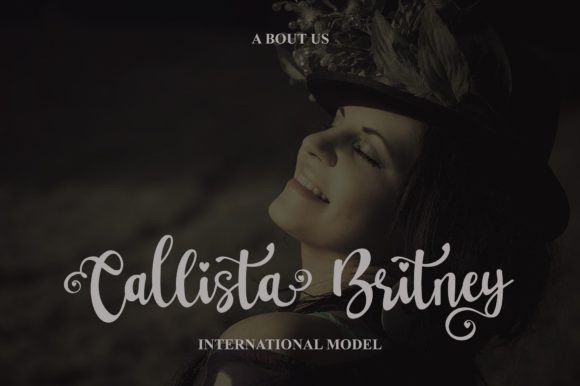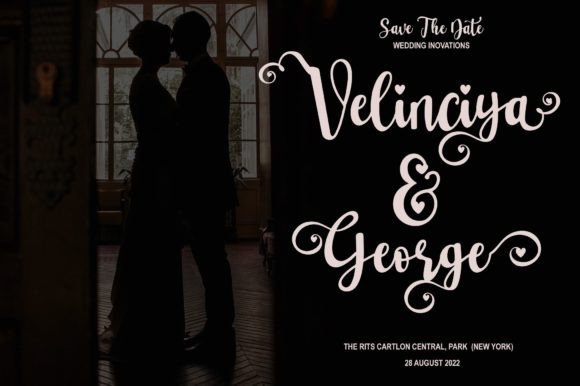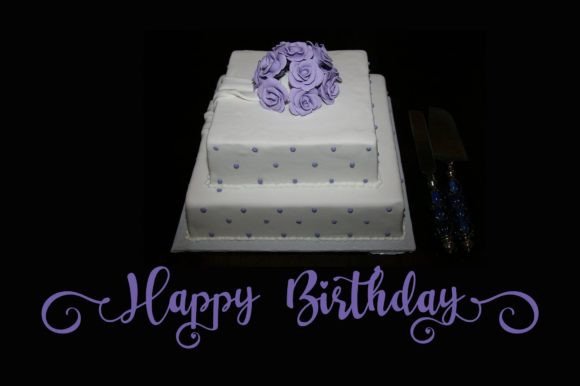
Introduction to Hello Septiemberia Font
Hello Septiemberia is a very beautiful and elegant handwritten font to convey any message with confidence, authenticity, and charm.
This will enhance a variety of craft ideas, from cards to branding, labels, and more This font is PUA encoded, which means you can access all of the glyphs and swashes with ease.
Key Features of Hello Septiemberia Font
Why Choose Hello Septiemberia Font?
Hello Septiemberia Font offers exceptional quality and versatility, making it a valuable addition to your design toolkit. Whether you’re creating for personal projects or commercial use, Hello Septiemberia Font delivers professional results.